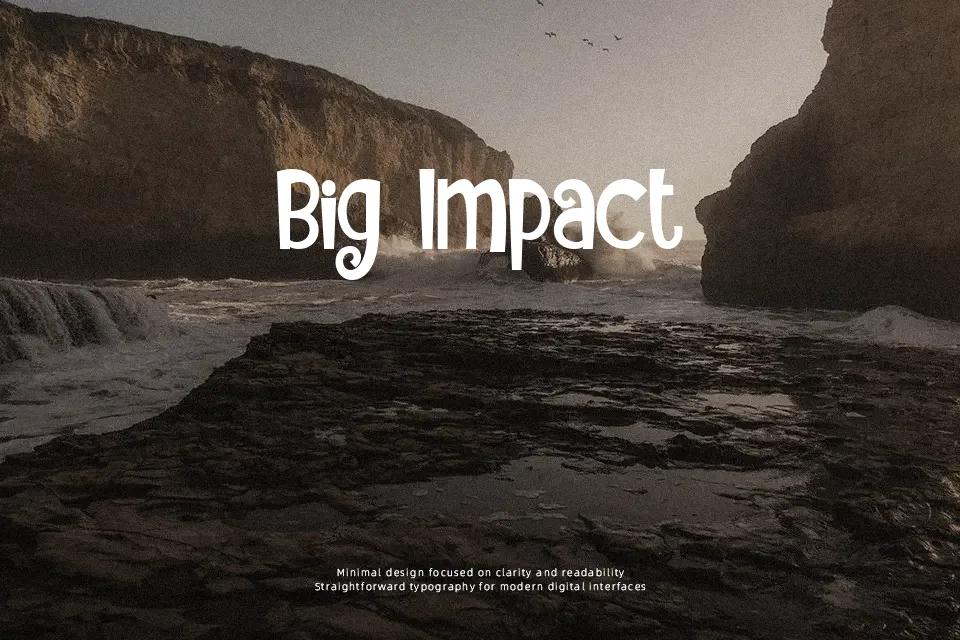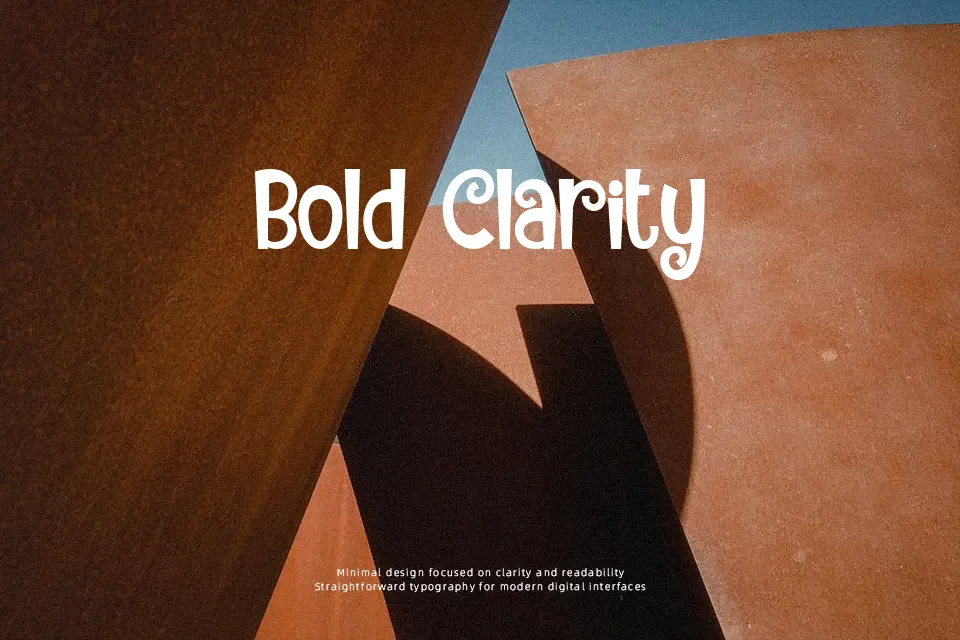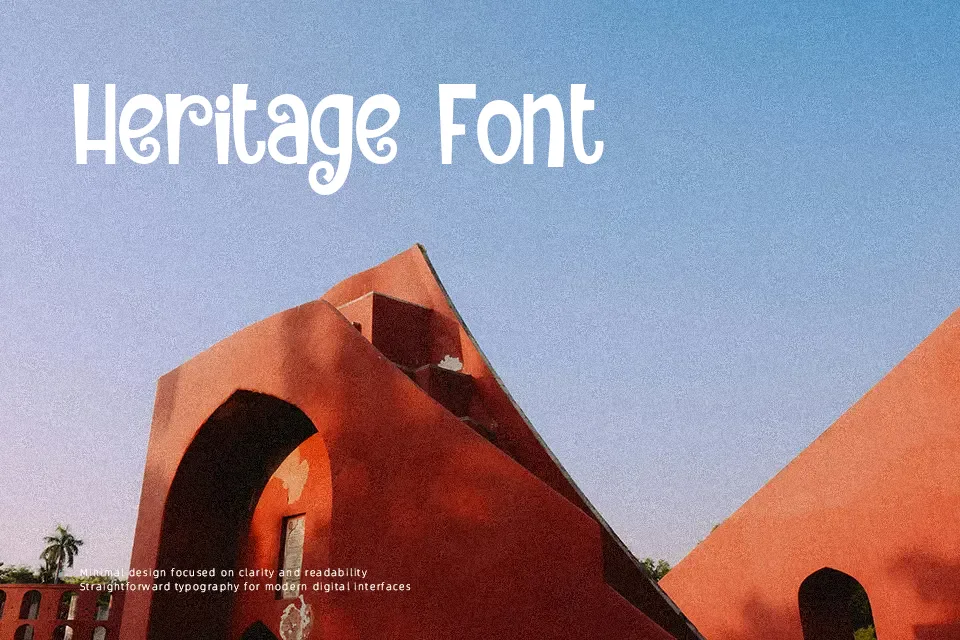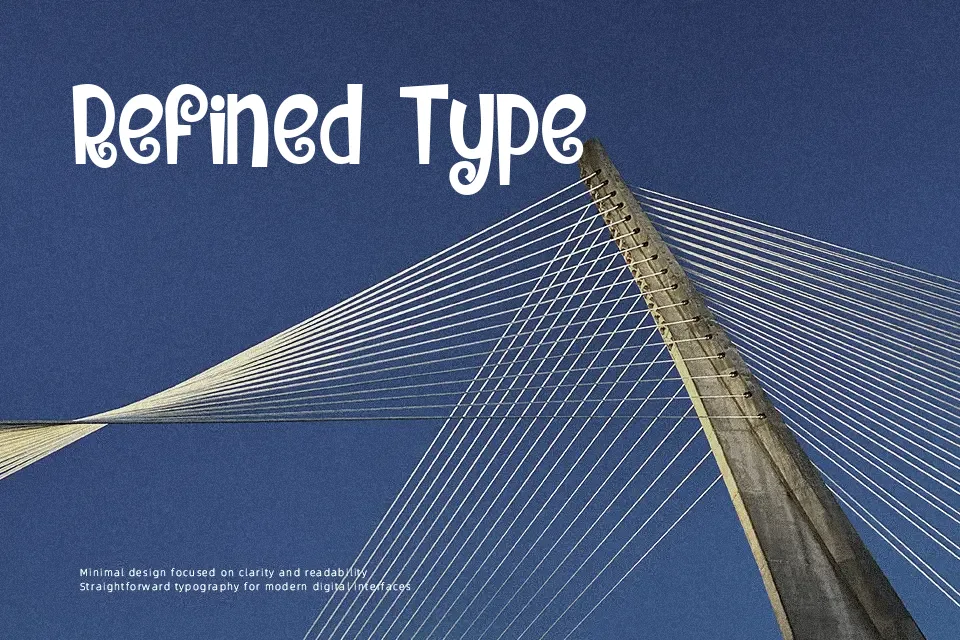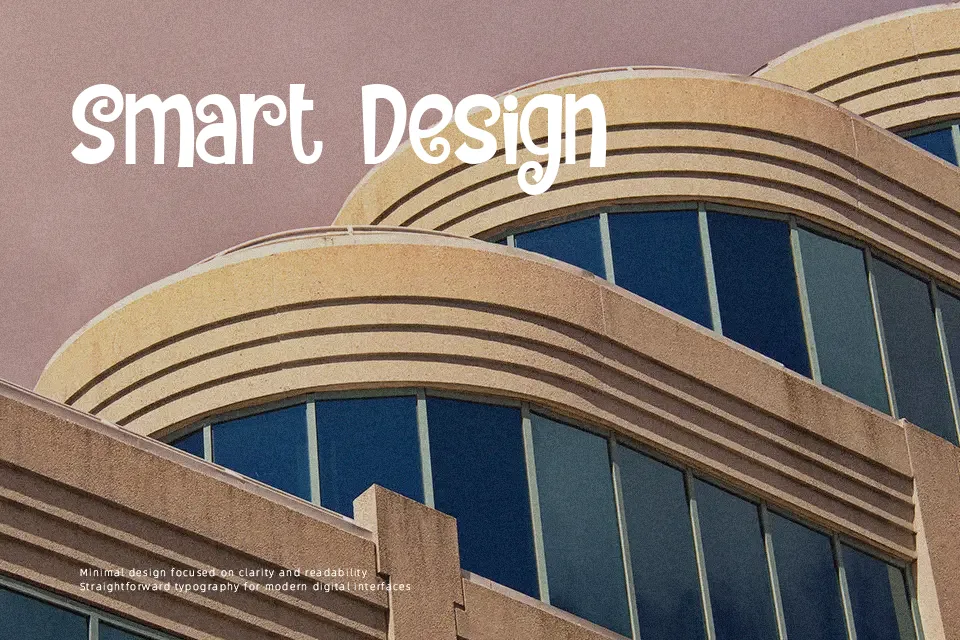
Strange of story Font
Designed by Ibram Syah
Strange of story Font showcases dynamic display letterforms shaped by prominent spiral curls, heavy stroke weights, and expressive terminal flourishes. The character spacing is relatively compact, maintaining a cohesive rhythm across uppercase and lowercase sets, while the moderate stroke contrast highlights its whimsical curvature. In terms of proportions, the rounded counters and extended decorative swashes create an animated visual presence suited for fairy tale covers and novelty branding. However, these intricate flourishes reduce legibility in continuous reading environments, making the typeface ineffective for body paragraphs and tiny captions. The letterforms perform with maximum clarity when set as prominent display headlines.
Best For: children’s book covers,themed event posters,novelty product packaging,festival flyers
Not Ideal For: long body text,dense editorial layouts,mobile app interfaces,legal documents
Perfect for headline, invitation, and kids, with a artistic and decorative style.